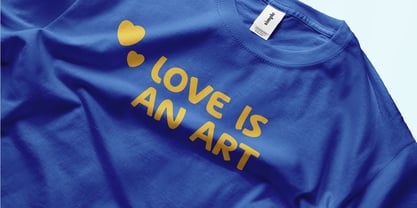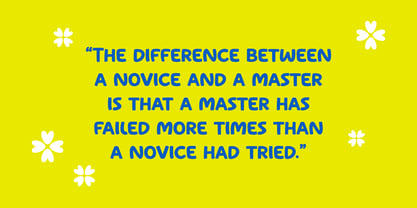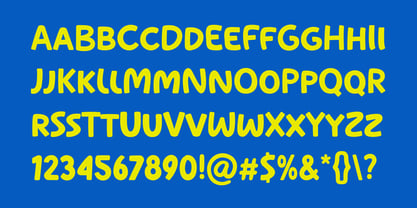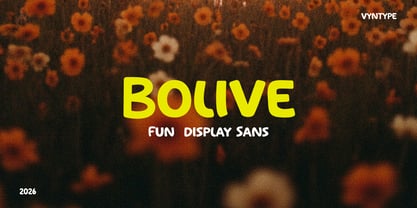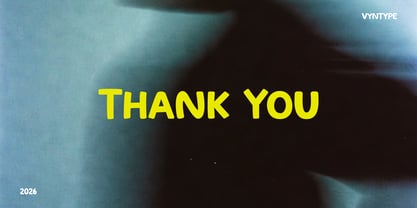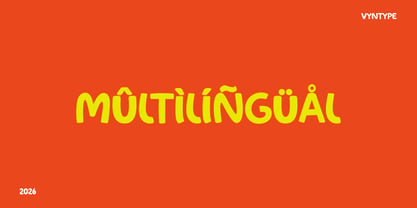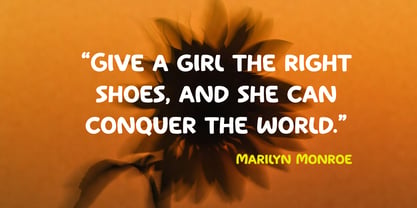
Bolive
The Bolive Font Family was designed by Hero Novyanto and published by Vyantype Studio. Bolive contains 1 styles. More about this family
Bolive is a modern, playful sans-serif typeface distinguished by its soft edges, lively rhythm, and "juice" a design term that conveys visual energy and fullness. This typeface effectively bridges the gap between a clean, professional sans and a whimsical, hand-drawn display font. Unlike conventional geometric sans fonts that emphasize sharp angles, Bolive features generous corner rounding. Each terminal and joint is cushioned, imparting a friendly, approachable "squish" that enhances its charm and versatility for various applications, including branding, packaging, and user interfaces.